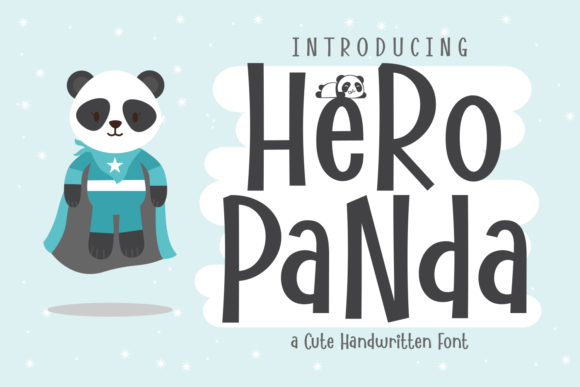
**Introducing Hero Panda Font: The Ultimate Display Font for Captivating Visuals**
Embark on a typographic adventure with Hero Panda Font, a display font that exudes character and charm. Crafted by the visionary minds at 7NTypes, this font is meticulously designed to elevate your creative projects to new heights.
Hero Panda Font boasts a captivating blend of chic, fun, and playful elements. Its bold, rounded shapes evoke a sense of whimsy, while its sharp angles add a touch of sophistication. Whether you're seeking a standout logo for your brand or an eye-catching design for your latest t-shirt, Hero Panda Font is the perfect choice to make a lasting impression.
**Unleash Your Inner Artist:**
With Hero Panda Font, your creative potential knows no bounds. Its versatility makes it an ideal companion for a wide range of branding and design projects. From captivating logos to vibrant t-shirt designs, this font empowers you to express your unique style and vision.
**Captivate Your Audience with Cinematic Appeal:**
As the name suggests, Hero Panda Font is a natural choice for any project that demands a larger-than-life presence. Its bold, oversized characters are perfect for television displays, billboards, and other large-scale applications. Let Hero Panda Font command attention and leave an unforgettable mark on your audience.
**Embrace the Power of Playful Elegance:**
Hero Panda Font is more than just a typeface; it's a conduit for expressing your individuality and creativity. Its playful yet elegant nature allows you to add a touch of whimsy to your designs without compromising on sophistication. Embrace the power of Hero Panda Font and watch your creative visions come to life with vibrant energy.